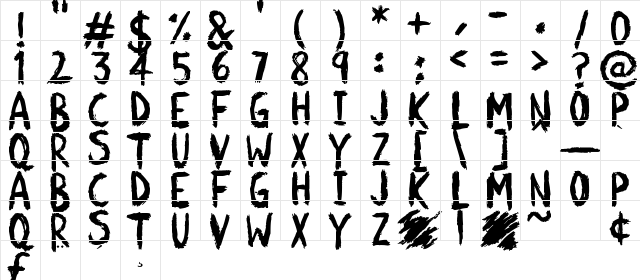
Scratchies Regular
Design Context for Scratchies
Scratchies is a composed and adaptable typeface that performs quietly and consistently across a wide range of design contexts.
Pro Tip: Use Scratchies in both headline and body roles to test its range before committing to a single application.